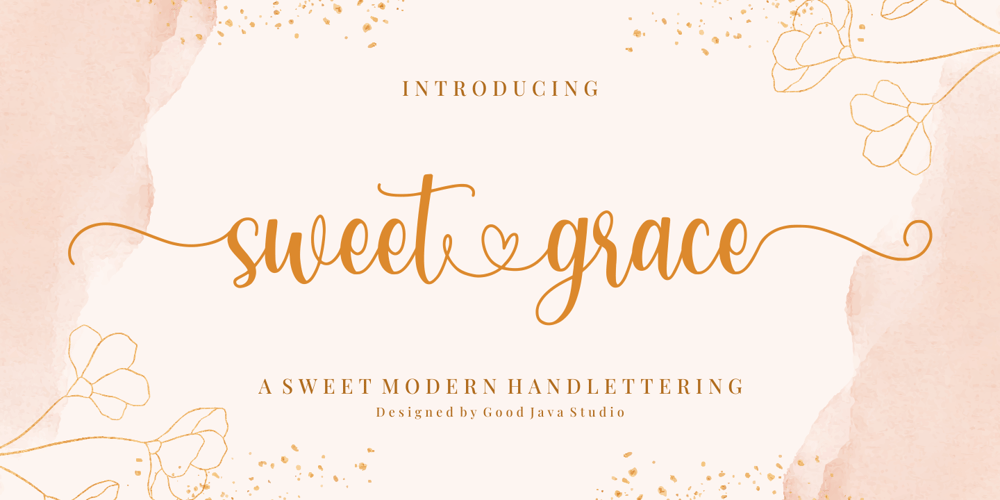
Sweetgrace
Sweetgrace font
Sweetgrace Font Family was designed by Good Java and published by Good Java Studio. Sweetgrace contains 1 styles and family package options. Sweetgrace is a romantic script font with many swashes in start and ending characters. This font includes full set of swash heart lowercase letters, numerals, and punctuation. Also it includes: short lowercase beginning and ending swashes, lowercase ending heart swashes, which serve to connect two words or letters. Sweetgrace is absolutely perfect for invitations, monograms, wedding invitations, fashion, branding, labels, and logotypes.